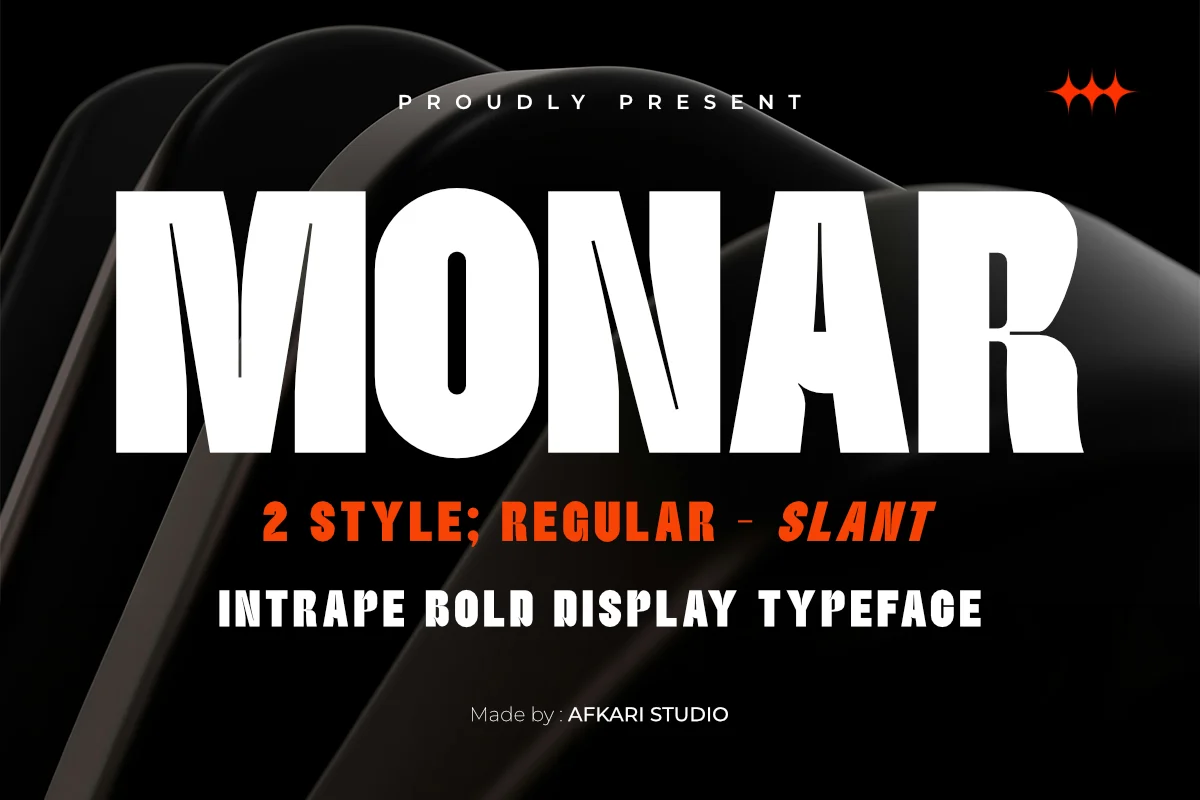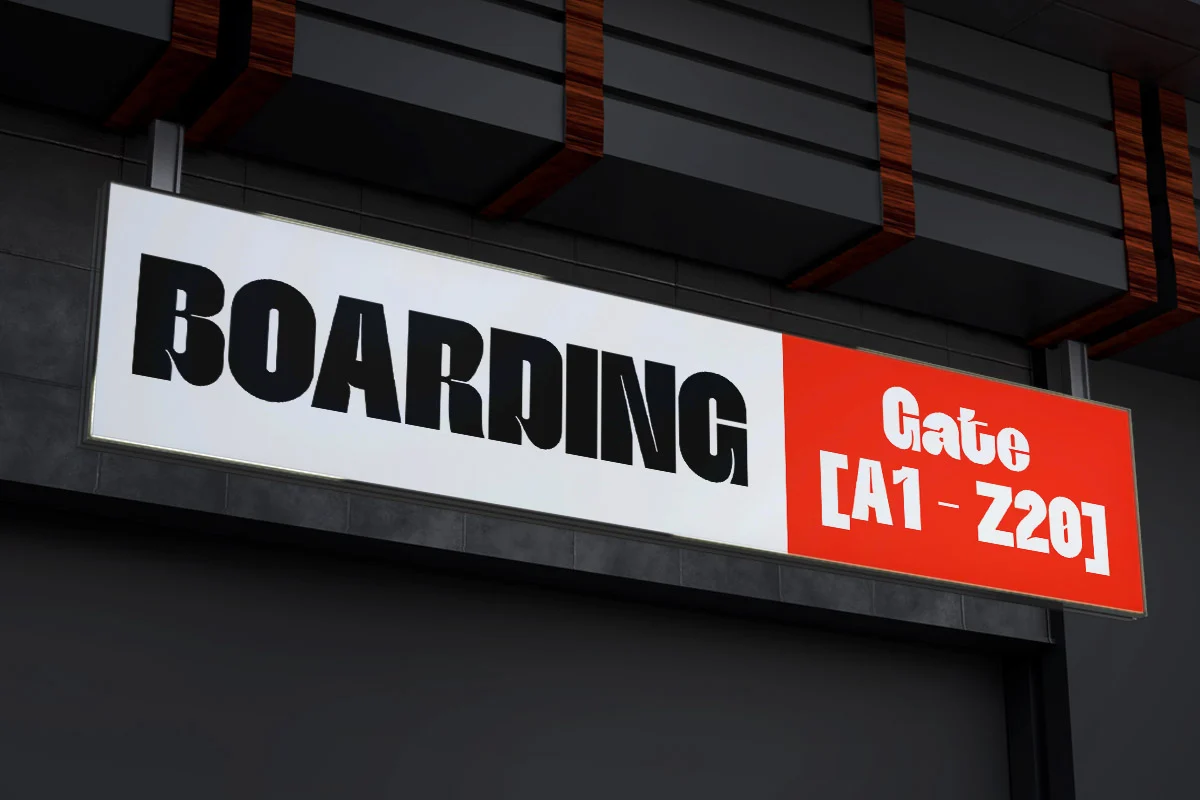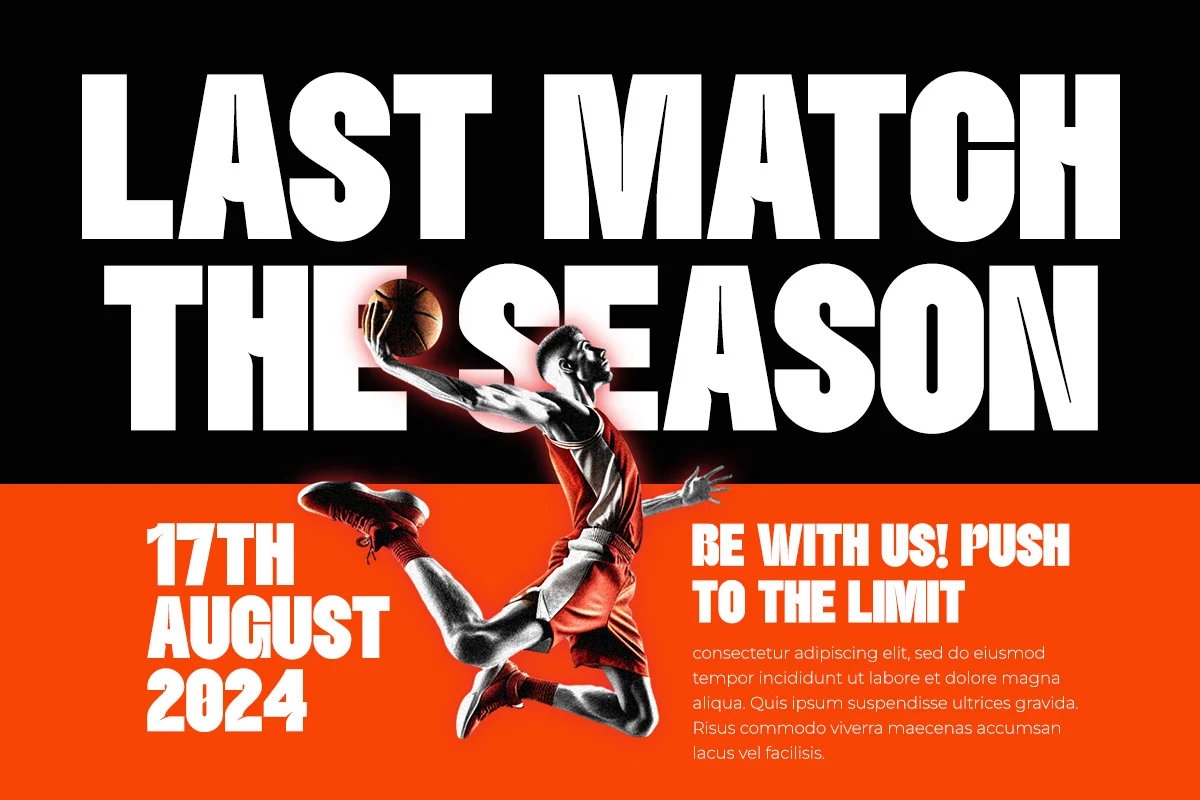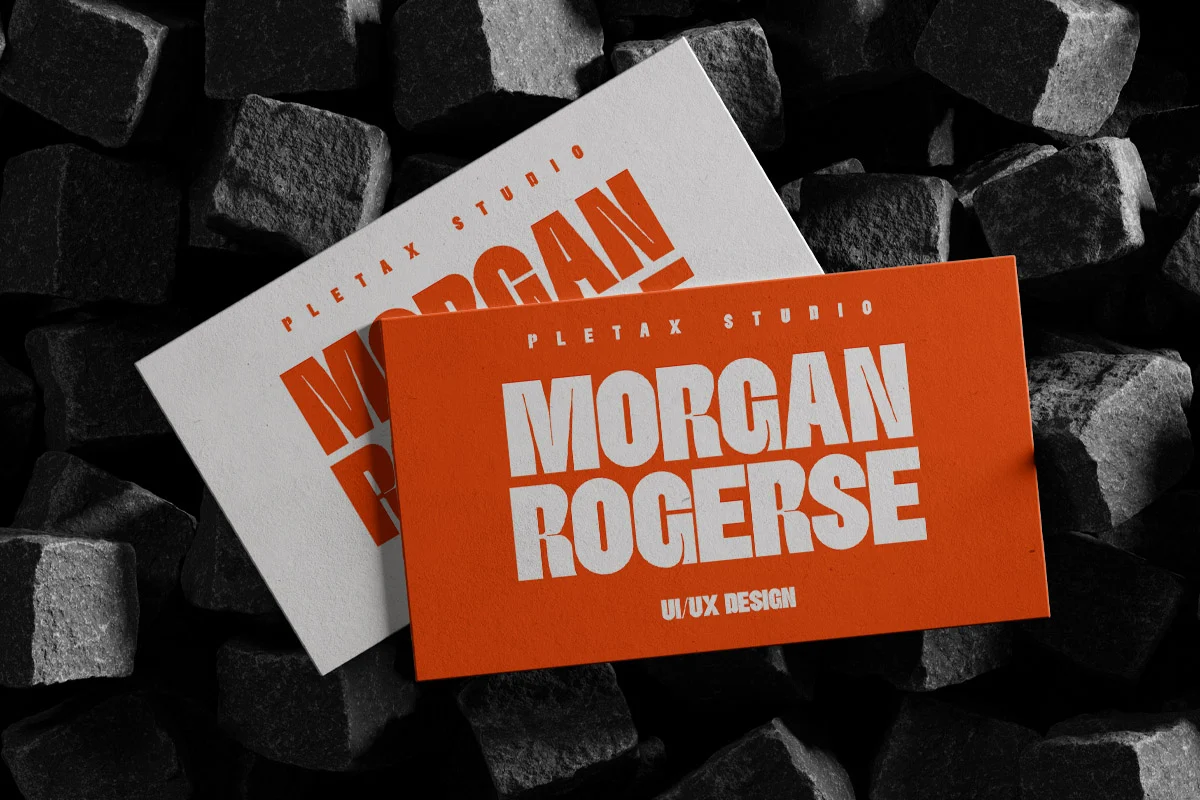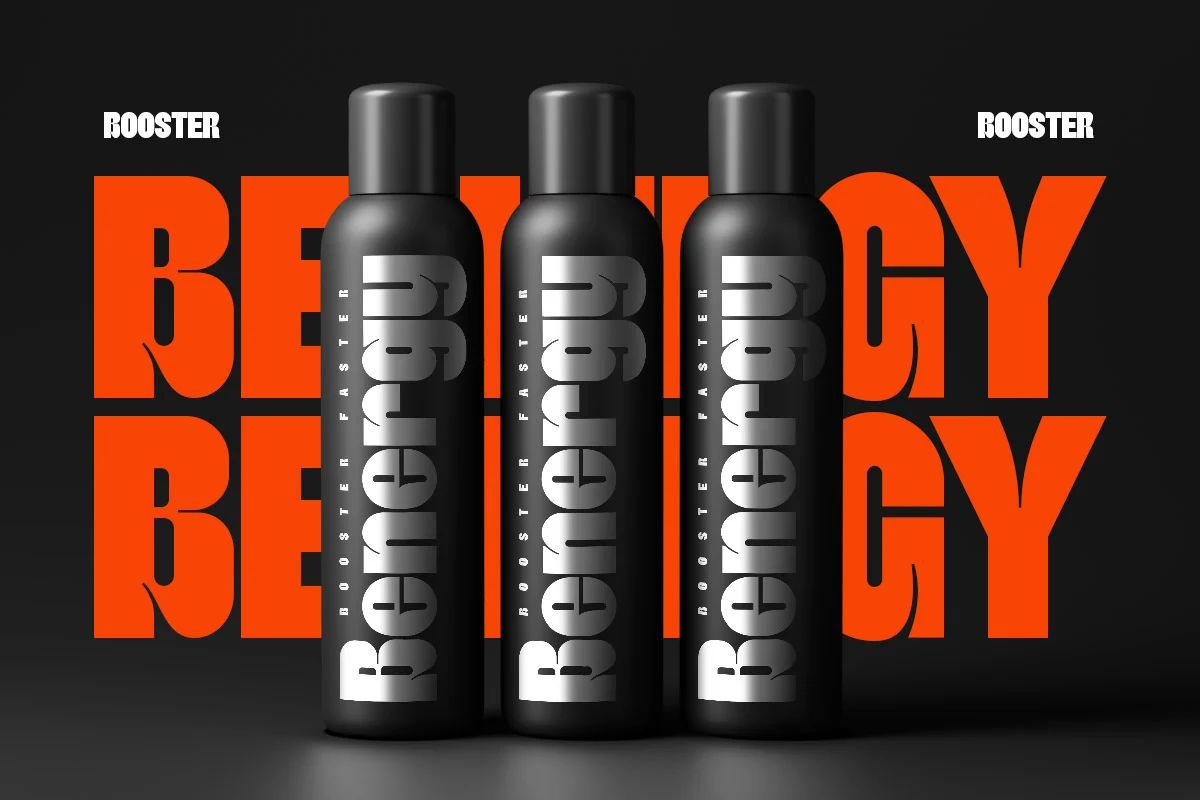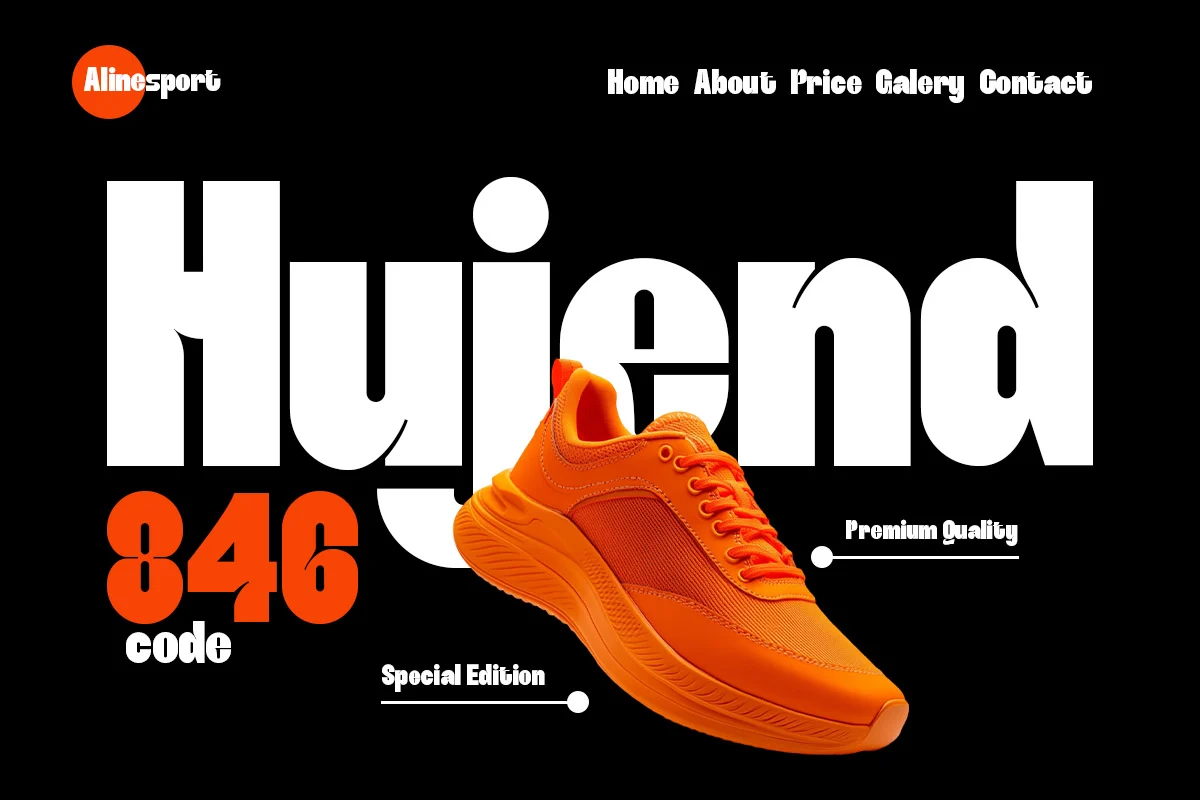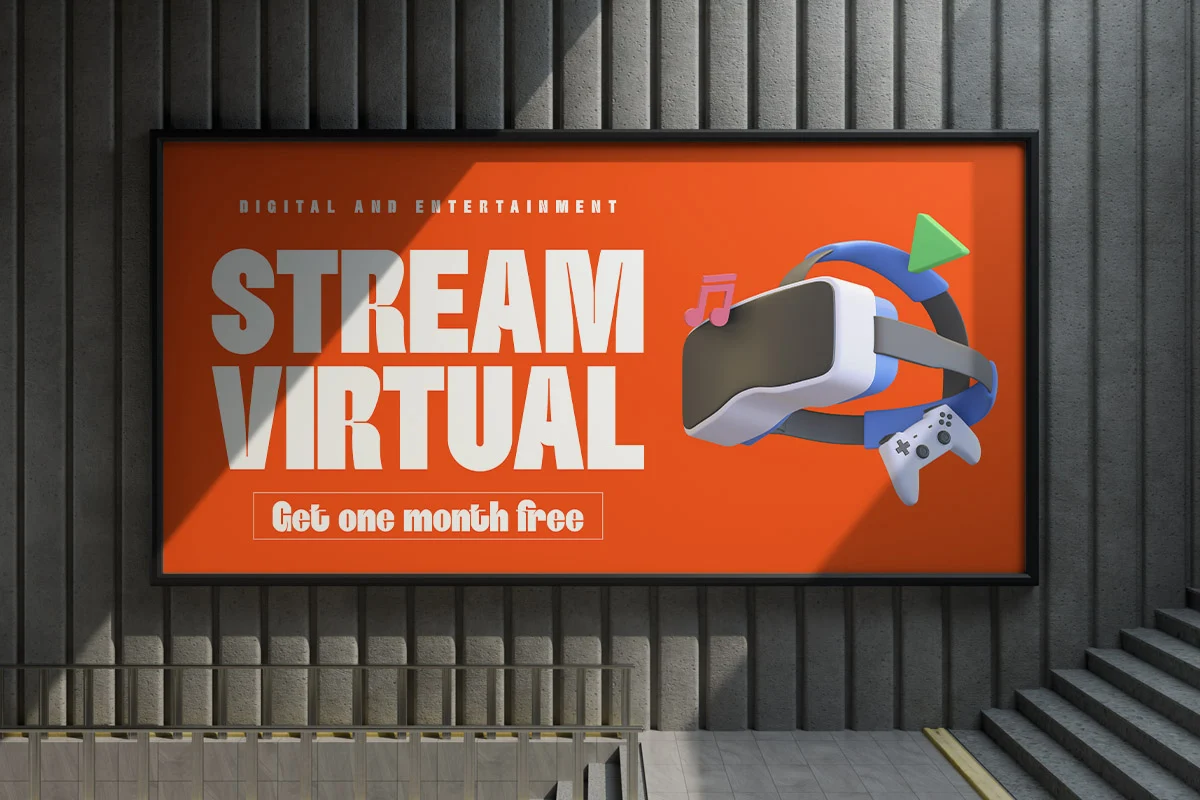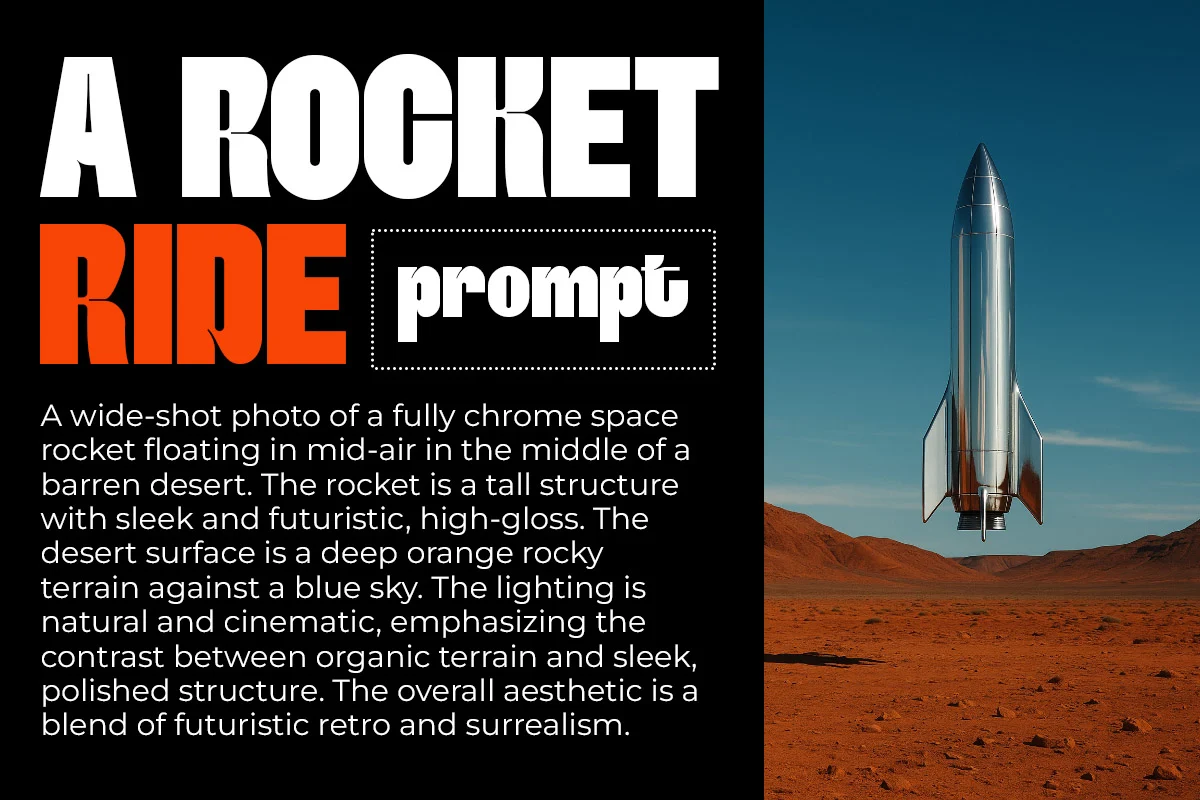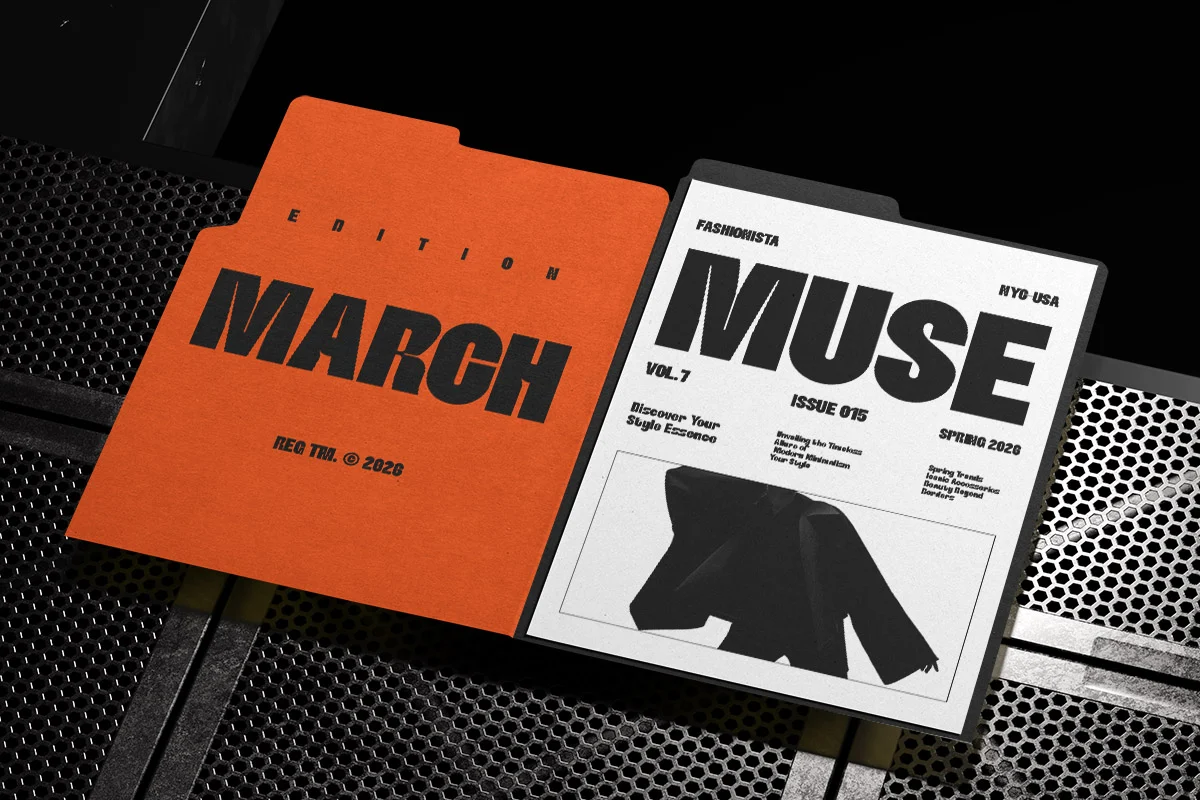
Monar is a bold display typeface designed to create powerful visual impact, modern character, and exceptional readability. With its strong geometric forms and clean contemporary styling, Monar instantly elevates any design project. Therefore, it works perfectly for branding, headlines, logos, posters, packaging, advertising, social media graphics, and editorial layouts.
Featuring two versatile styles—Regular and Slant—Monar gives designers greater creative flexibility. The Regular style delivers a solid and confident appearance. Meanwhile, the Slant style introduces movement, energy, and a modern attitude. As a result, you can create dynamic and memorable typographic compositions with ease.
Monar suits professional designers, creative agencies, content creators, and branding specialists alike. Moreover, it maintains excellent clarity while delivering a strong visual presence. In addition, its carefully crafted letterforms perform exceptionally well in large-scale typography, bold headlines, and impactful brand identities. Consequently, Monar helps brands communicate with confidence and authority.
Whether you’re building a technology brand, launching a sports campaign, creating a streetwear collection, or designing a gaming project, Monar helps your message stand out. Furthermore, it works beautifully for music posters, product packaging, and digital advertisements. Likewise, it adapts seamlessly to both print and digital environments. Therefore, designers can use it across multiple creative platforms without compromising quality.
Highlighted Features:
- 2 Styles: Regular & Slant
- Uppercase, Lowercase, Numbers, and Punctuation
- Special Alternates and Ligatures
- Bold Display Typeface
- Multilingual Support: ä ö ü Ä Ö Ü ß ¿ ¡
More than just a typeface, Monar serves as a powerful creative tool. Furthermore, it brings bold personality, modern sophistication, and professional quality to every project. At the same time, its versatile design adapts effortlessly to a wide range of creative applications. As a result, designers can achieve consistent and professional results across different industries.